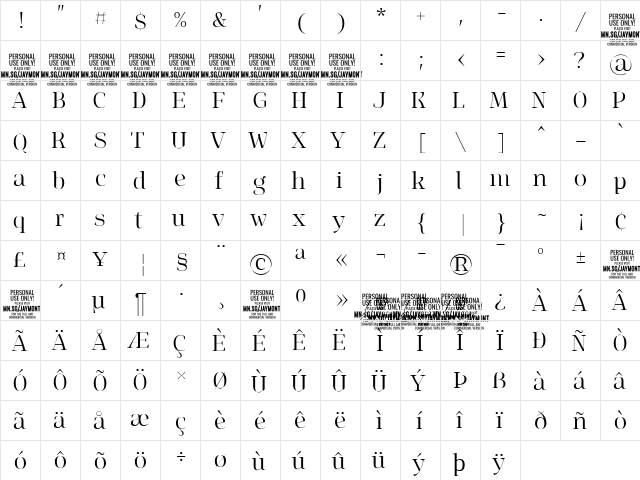
Jaymont PERSONAL Light
| Foundry | Mans Greback |
| Designer | Mans Greback |
Design Context for Jaymont PERSONAL Typeface
Jaymont PERSONAL takes a measured approach to typography — its balanced proportions and neutral character make it a reliable workhorse for both digital and print work. The delicate stroke weight brings airiness and refinement to layouts.